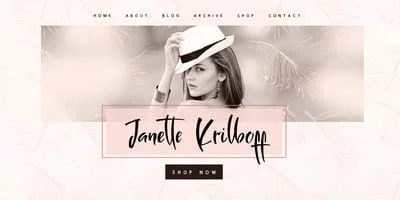
Sister Pamella Font Cyrillic Duo
Sister Pamella Font Cyrillic Duo Font
Sister Pamella Font Cyrillic Duo Font is perfect for Eastern European cultural centers, Russian Orthodox churches, Slavic heritage museums, multilingual wedding invitations, international family photography studios, cross-cultural educational materials, and bilingual lifestyle publications. This elegant typeface pair combines feminine grace with authentic Cyrillic typography, bringing multicultural sophistication and sisterly warmth to any design project celebrating Slavic culture and family connections.
What makes Sister Pamella Font Cyrillic Duo Font exciting is its beautiful harmony between romantic script elegance and authentic Cyrillic tradition that perfectly captures the warmth of family bonds across cultural boundaries. The font features flowing letterforms with graceful curves and cultural authenticity that honor both Western calligraphic traditions and Eastern European typography heritage. Its inclusive character creates emotional connections while maintaining excellent readability for both ceremonial documents and multicultural communication applications.
The Sister Pamella Font Cyrillic Duo Font family includes complementary Latin and Cyrillic variations with multiple weight options and cultural ornamental elements. The character set features bilingual ligatures, cultural symbols, family alternates, and international decorative accents that enhance the font's multicultural appeal. Advanced OpenType features support complex Cyrillic typography and provide flexibility for Eastern European cultural institutions and international family-focused applications.
Whether you're designing multicultural family brands, creating Eastern European cultural materials, or developing international celebration content, Sister Pamella Font Cyrillic Duo Font provides exceptional cultural authenticity and versatility. This heartwarming typeface transforms ordinary text into meaningful cross-cultural experiences that celebrate family unity while establishing trusted recognition in competitive multicultural and Eastern European heritage marketplaces.